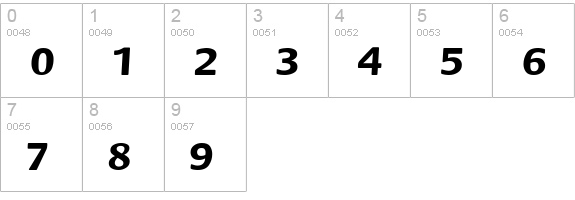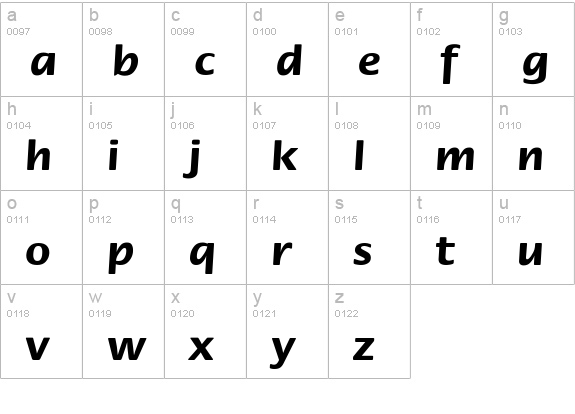
StackExt-Bold Font Details
StackExt-Bold is a strong, high-contrast variant in the StackExt typeface family \xE2\x80\x94 well suited to headlines, attention-grabbing titles, and strong calls-to-action.
Introducing StackExt-Bold, a striking and modern font that exudes confidence and professionalism. This bold and powerful typeface is perfect for making a bold statement in your designs. Whether you're creating eye-catching headlines, attention-grabbing logos, or captivating typography, StackExt-Bold will surely leave a lasting impression. With its strong and clean lines, StackExt-Bold commands attention and adds a touch of sophistication to any project. Its thick and precise letterforms make it highly legible, ensuring that your message is conveyed with clarity and impact. This font is ideal for use in various design contexts, such as advertising, branding, packaging, and more. One of the best features of StackExt-Bold is that it is freely available to download at FontsMarket.com. This means that you can easily access this exceptional font without any cost, making it even more accessible for designers and creatives alike. Whether you're a professional designer or a hobbyist, StackExt-Bold gives you the opportunity to elevate your work without breaking the bank. So why wait? Unleash the power of StackExt-Bold in your designs and let your creativity soar. Download this exceptional font for free at FontsMarket.com and embark on a journey of design excellence. With StackExt-Bold, your projects will stand out from the crowd and leave a lasting impression on your audience.